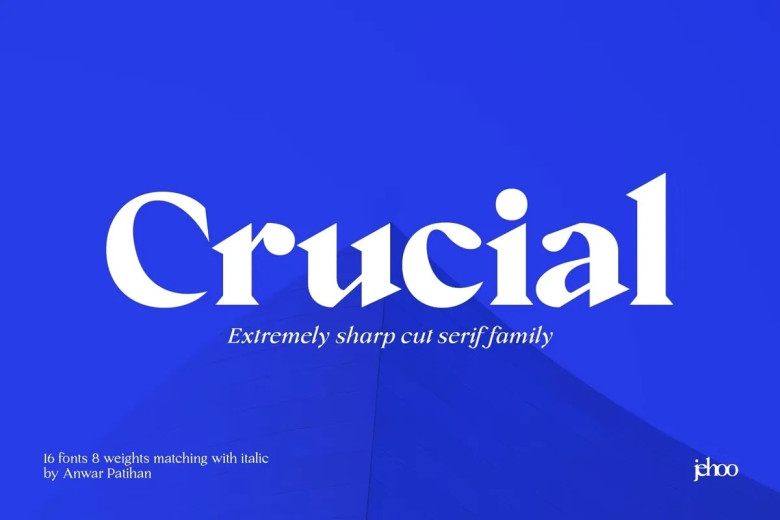
Crucial Font
Crucial is another sharp-serif typeface wherein the pointed tip of each piece of a character conjure up bold and elegance. This typeface has 8 weights, each pack come with elegant Italic sets.
Crucial will give boldness and elegance to your design. Crucial is fit for strong-spirited designs or even for a more striking and classic editorial look.
Crucial Serif Font